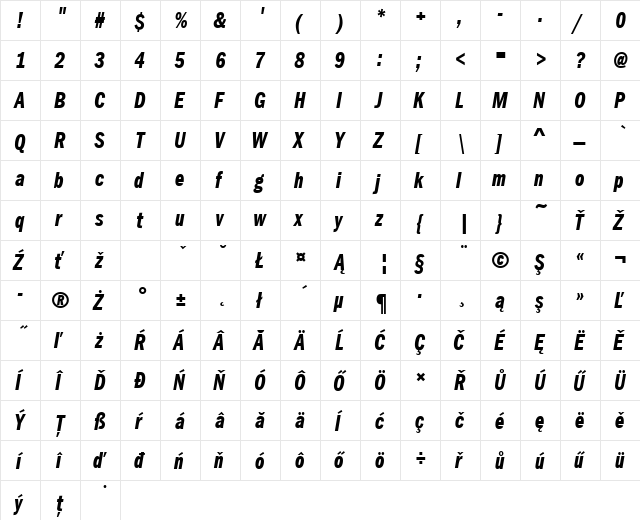
FranklinGotItcTEEDemCom Italic
Design Context for FranklinGotItcTEEDemCom Typeface
FranklinGotItcTEEDemCom takes a measured approach to typography — its balanced proportions and neutral character make it a reliable workhorse for both digital and print work. Its italic angle brings a sense of urgency and motion to the letterforms.
Pro Tip: Use FranklinGotItcTEEDemCom for emphasis, pull quotes, and subheadings where its slanted energy can add rhythm to the layout.